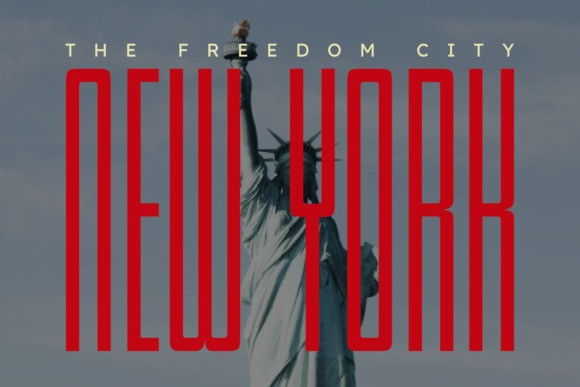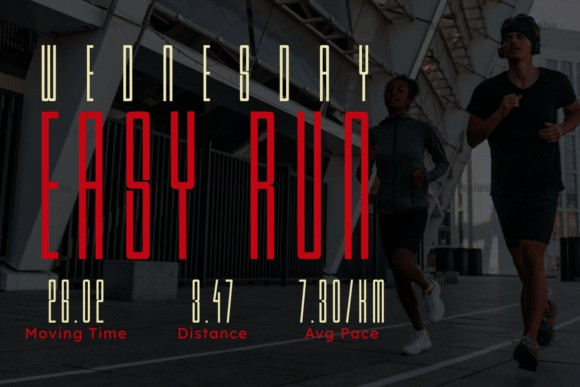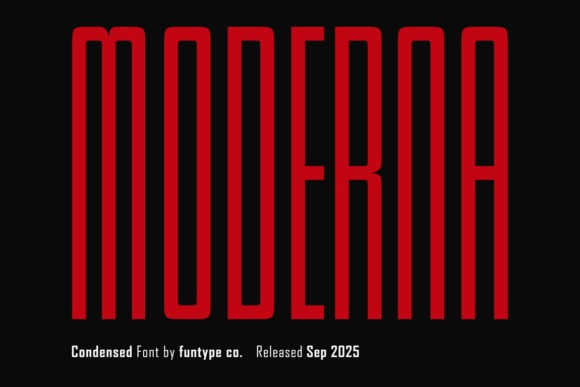
Moderna Condensed Font
Moderna Condensed Font is a bold and ultra-condensed sans serif typeface designed to deliver maximum visual impact. With its extremely tall letterforms and narrow structure, this font is perfect for headlines, posters, album covers, movie titles, sports graphics, and futuristic branding. Its modern and minimalist design makes it ideal for projects that demand strength, style, and clarity.